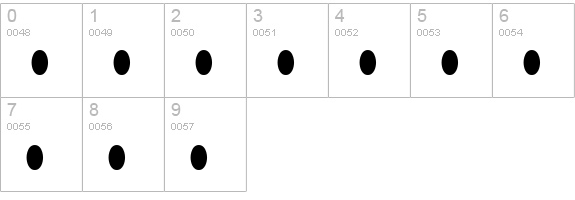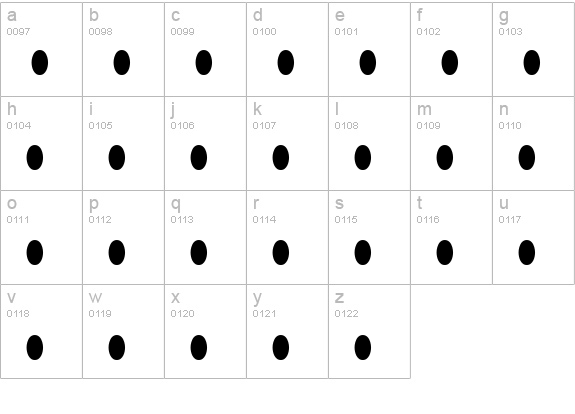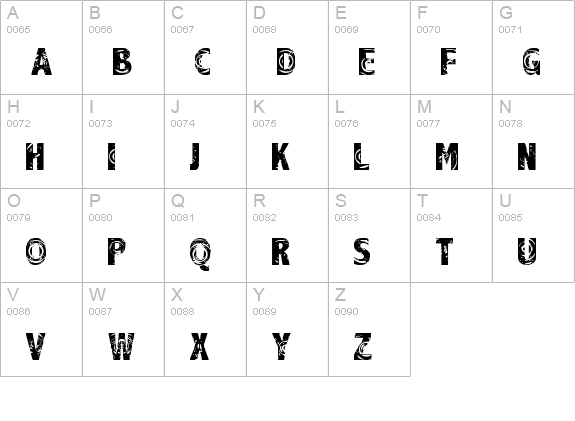
Raindrop Splash Font Details
Introducing Raindrop Splash font - a mesmerizing display typeface that will make your designs come to life with its unique and captivating style. Inspired by the gentle rhythm of raindrops falling on a tranquil pond, this font exudes a sense of tranquility and elegance. Raindrop Splash font features beautifully crafted letterforms, each adorned with delicate splashes that mimic the graceful touch of raindrops on a surface. The fluidity of the strokes and the organic shape of the splashes add a touch of natural beauty to any design project. Whether you're working on a logo, a poster, a website, or any other creative endeavor, Raindrop Splash font will bring a touch of sophistication and charm to your work. Its versatility allows it to be used for both headlines and body text, ensuring that your message is conveyed with utmost clarity and impact. And the best part? Raindrop Splash font is available for free! That's right, you can download this stunning font at FontsMarket.com without spending a dime. We believe that great design should be accessible to everyone, and that's why we're offering Raindrop Splash font as a free download. So go ahead, unleash your creativity and let Raindrop Splash font add a sprinkle of elegance to your next project. Download Raindrop Splash font today at FontsMarket.com and experience the beauty and versatility of this captivating typeface. Don't miss out on this opportunity to elevate your designs with a font that perfectly captures the essence of raindrops dancing on a surface.